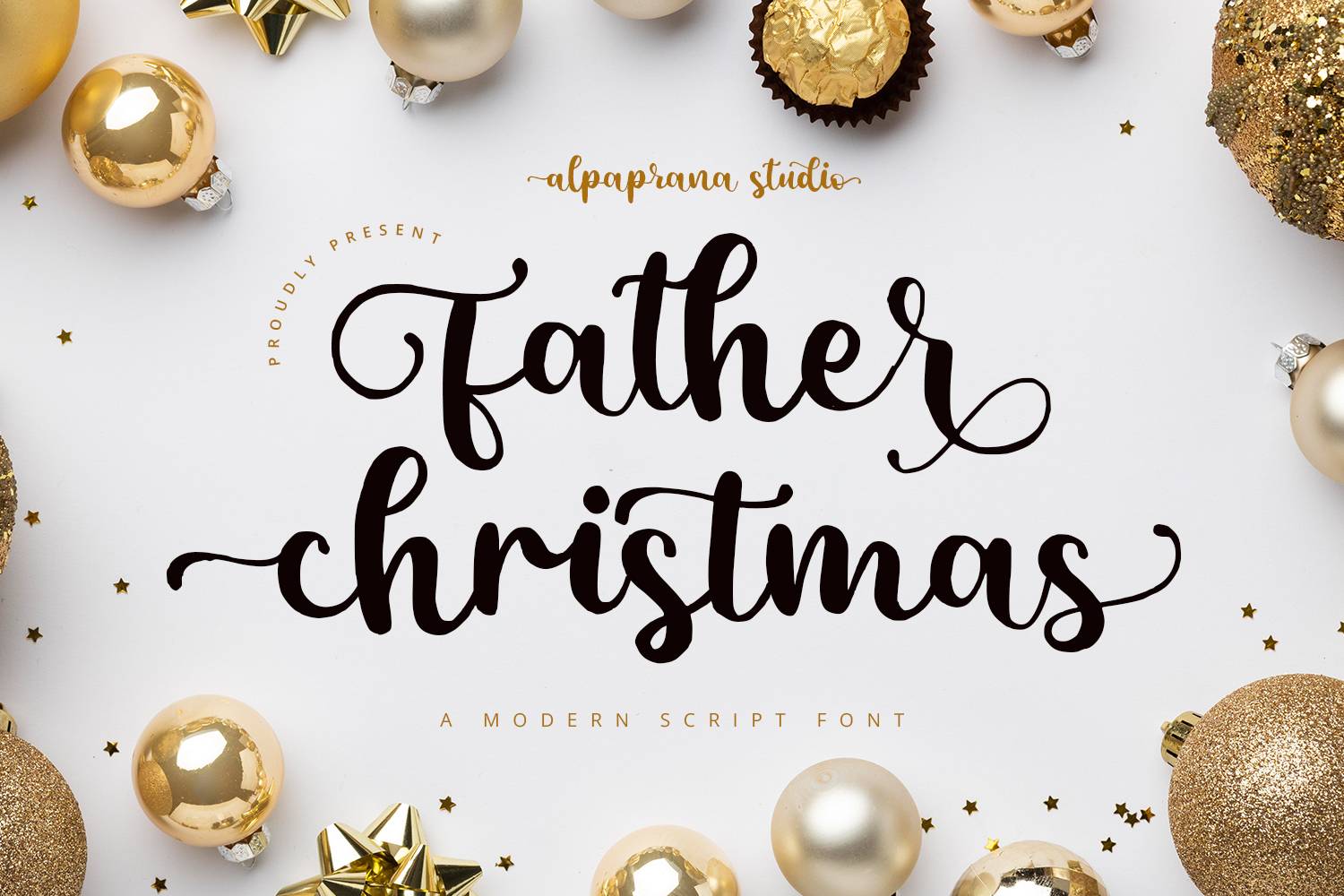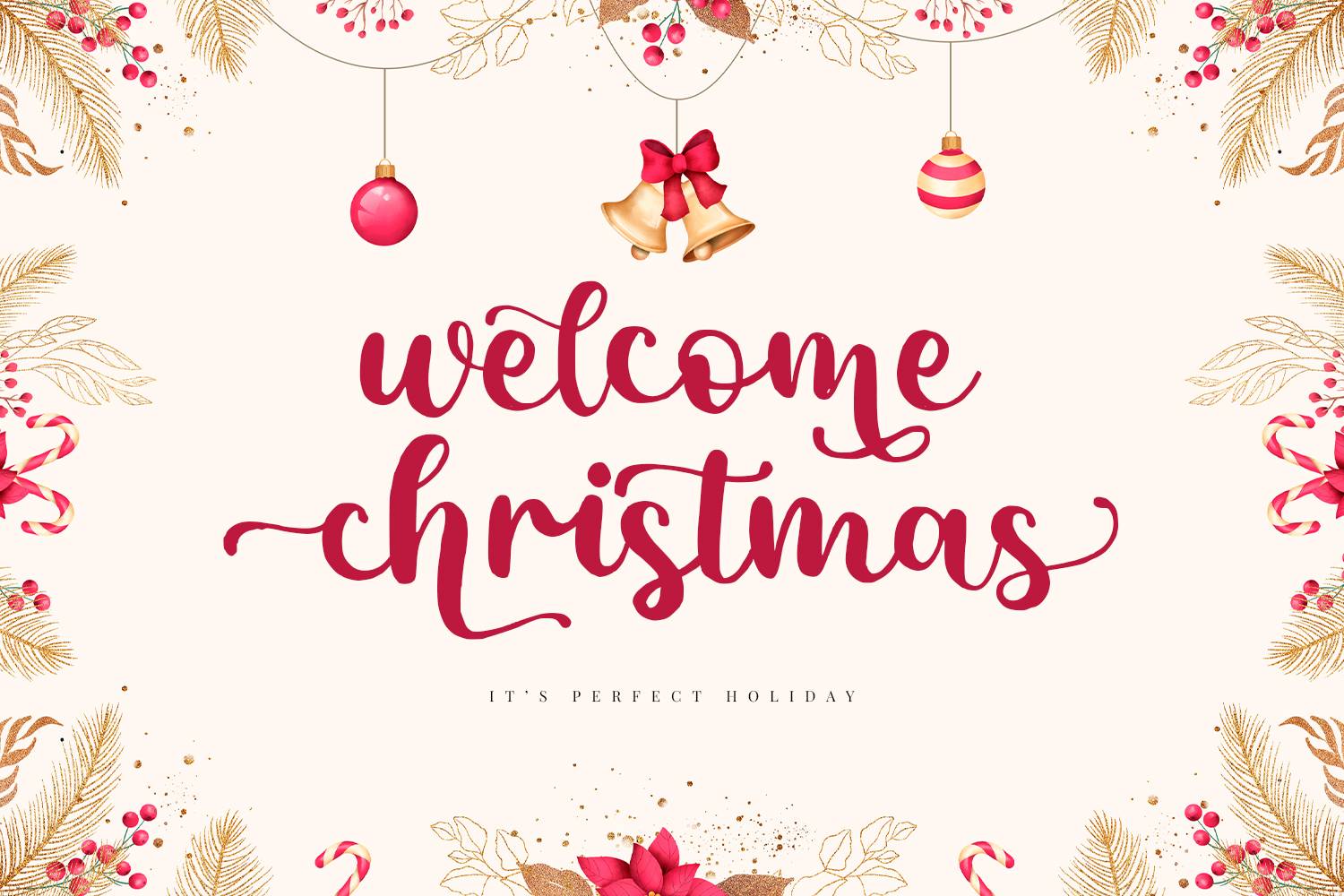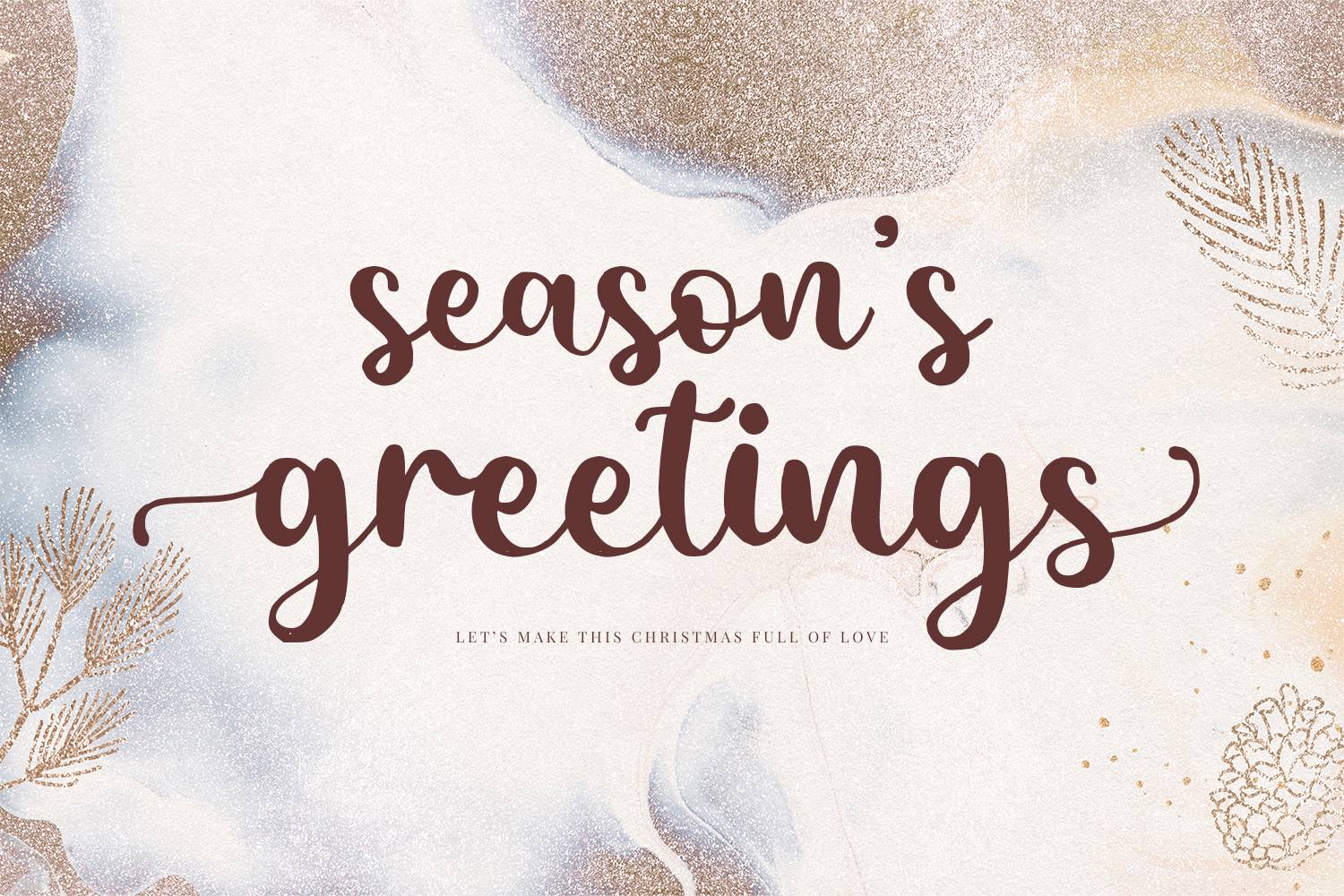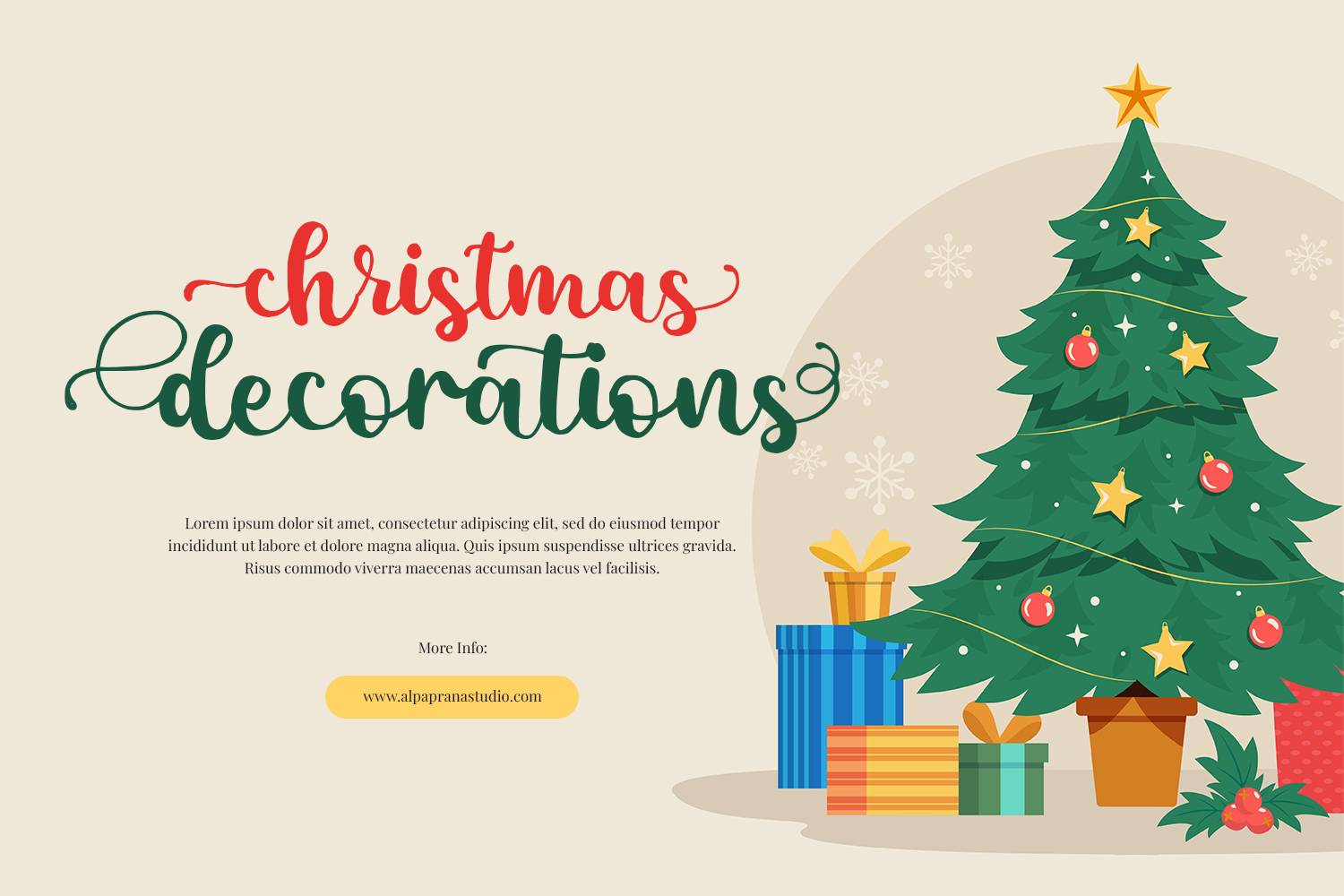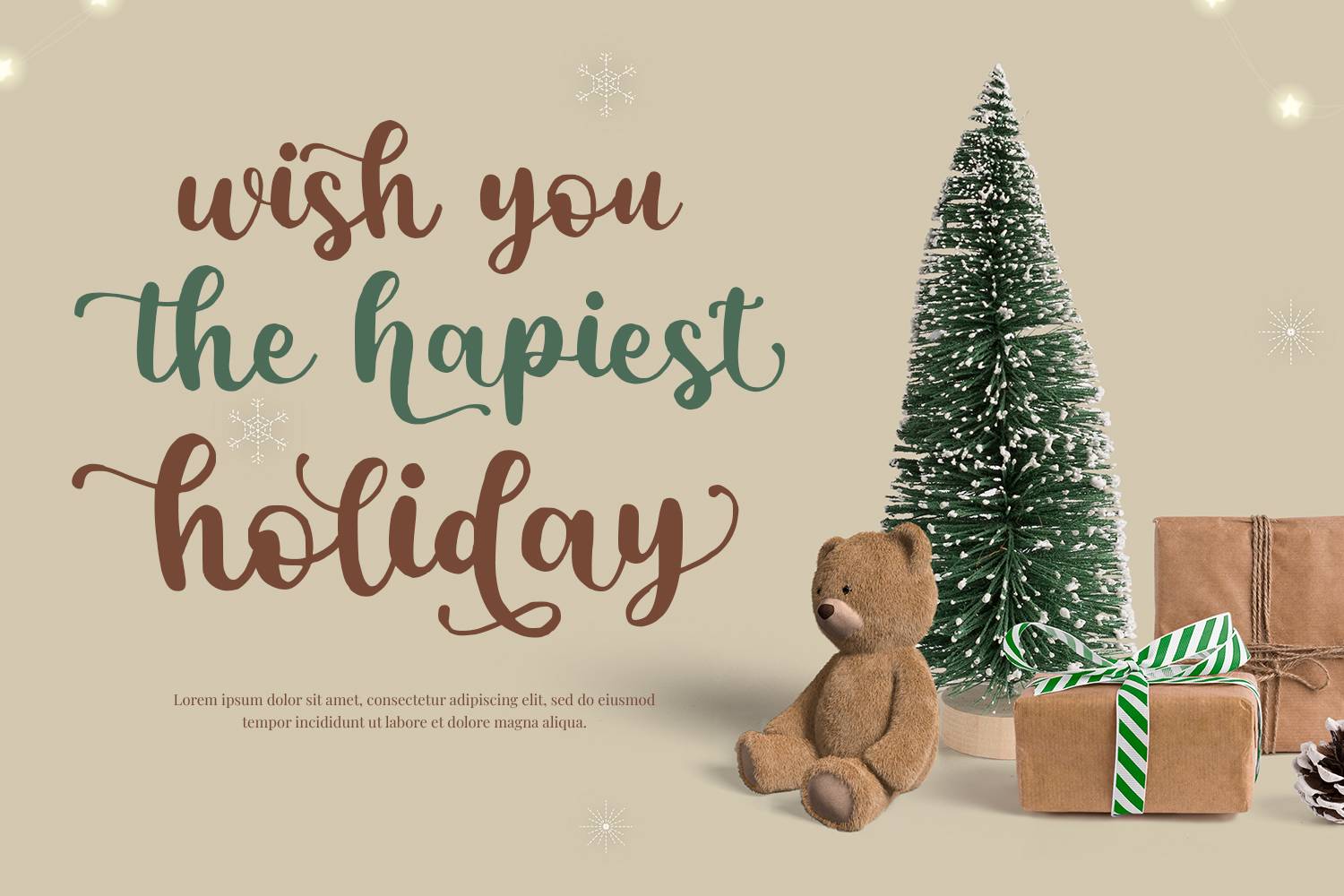
Father Christmas is a charming script font with a playful, handwritten feel that features smooth, rounded strokes and lively letterforms. Its medium weight and moderate x-height create a warm, approachable style perfect for festive, casual, and creative designs. This font works especially well for holiday-themed projects, invitations, and branding that seeks a friendly, joyful atmosphere.
Father Christmas Font